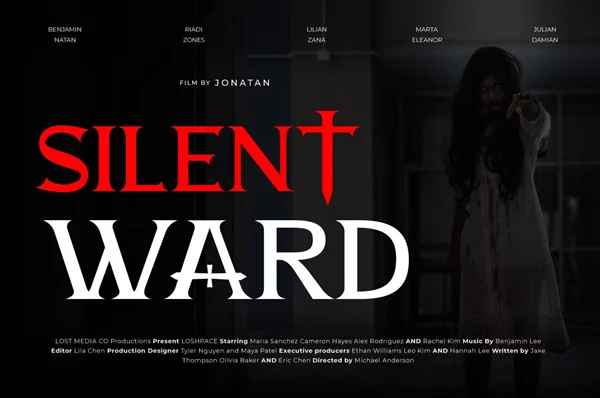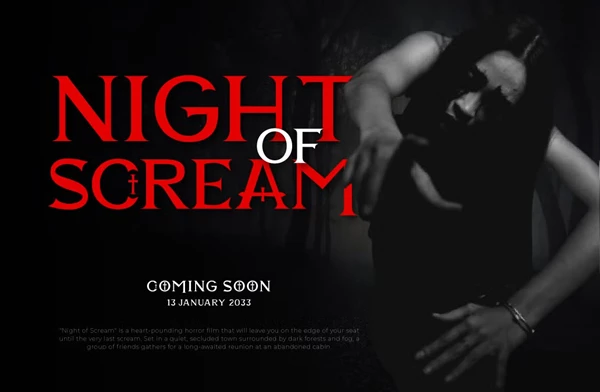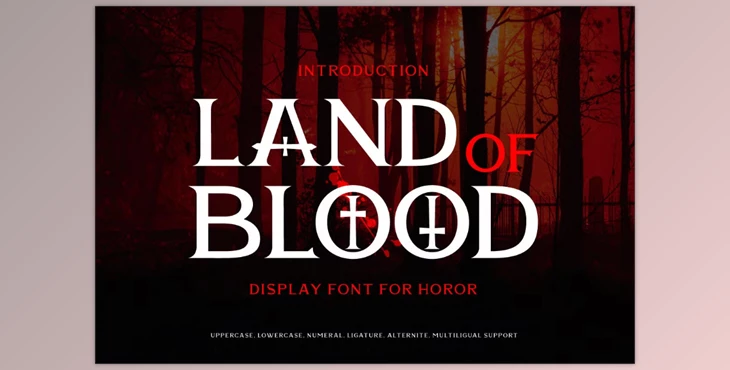
Land Of Blood - Horror Movie Font:
Land Of Blood is an intense horror film font that achieves the desired effect of suspense and fear. This typeface is correctly optimised for terrifying titles, gut-wrenching posters, and hauling thriller novel covers because every letter looks like it is ink and brushstrokes of gruesome splatters. The raw, chaotic energy of Land Of Blood undoubtedly brings more intensity to any design, be it for events of vampires, ghostly tales, or slasher films. The calm, classic foggy night atmosphere with rounded edges and braceless footsteps makes use of this font unforgettable, where titles come out bold and striking yet fitting for horror enchant.